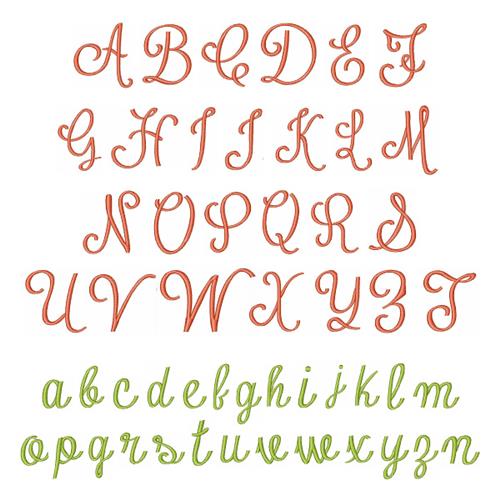
Embroidery Patterns is happy to present Monogram Curl Font machine embroidery font which has Script machine embroidery font with flowing connections, ideal for personalizing items like handkerchiefs and decorative pillows. Available in PES, DST & 11 other formats. included. If you would like to view more embroidery fonts and alphabets please search our embroidery fonts page.